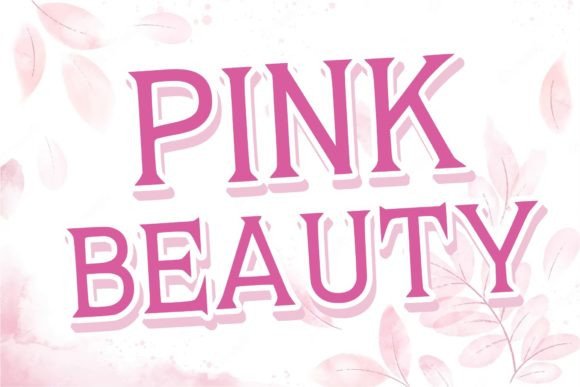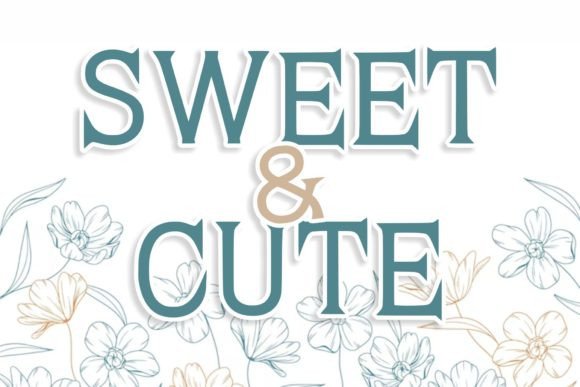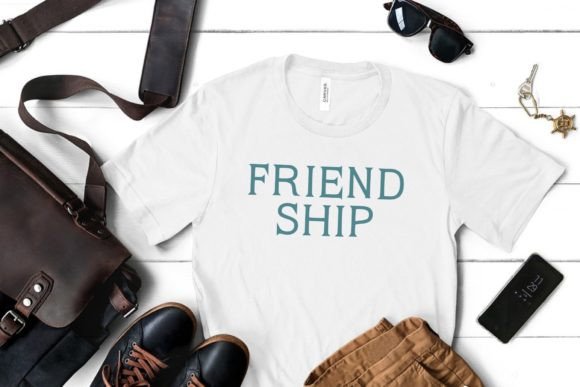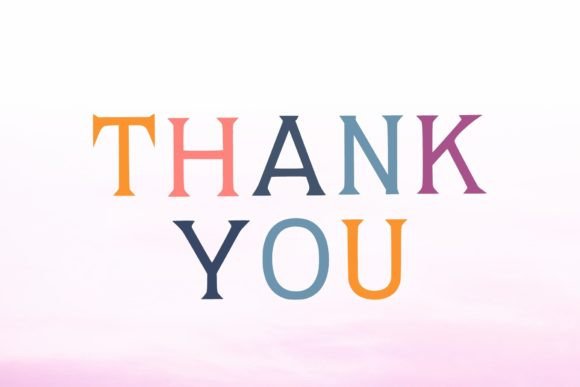
Introduction to Queen Flowers Font
Have you ever found yourself sitting at your desk, staring blankly at a blank sheet of paper, waiting for inspiration to strike? This is a moment many designers can relate to, and it’s where the perfect font can make all the difference. For those seeking a touch of elegance and whimsy in their creative projects, we’re excited to introduce the Queen Flowers Font – a high-quality, modern display font that’s sure to captivate.
This free download is more than just a design resource – it’s a versatile tool that can be used in a variety of applications, from digital design and presentations to crafting and making greeting cards. With its transparent background and intricate details, the Queen Flowers Font is a valuable asset for designers looking to add a personal touch to their work.
Whether you’re working on a large-scale project or a small, personal gift, this font has the potential to become your go-to choice for any occasion. In the following article, we’ll delve into the features and benefits of the Queen Flowers Font, and explore why it’s a must-have for any designer’s toolkit.
Key Features of Queen Flowers Font
- High-quality design resource ideal for creative projects and personal use.
- Features a transparent background, allowing for easy layering and manipulation in design projects.
- Available in a range of sizes, from 200 to 1000 pixels in height, catering to various design requirements.
- High-resolution design (300 DPI) for crisp and clear display in print and digital media.
- Unique, elegant design style making it perfect for floral-themed projects, wedding invitations, and other creative endeavors.
Honest Review: Queen Flowers Font
As a designer, I’m always on the lookout for high-quality design resources that can elevate my creative projects. The Queen Flowers Font is one such resource that caught my attention.
- Delicate and intricate design, perfect for adding a touch of elegance to any project.
One of the standout features of the Queen Flowers Font is its transparent background, which makes it easy to combine with other design elements and backgrounds.
- May not be suitable for bold or dramatic designs, as it’s a more delicate and intricate font.
- Limited character set, which may not be ideal for longer text-based projects.
Overall, I’m impressed with the Queen Flowers Font, and I think it’s a great addition to any designer’s toolkit. With its high-quality design and transparent background, it’s a versatile resource that can be used in a variety of creative projects.
Getting the Most Out of Queen Flowers Font
For the best results, use Queen Flowers Font in conjunction with other high-quality design elements, such as transparent backgrounds and intricate illustrations. This font is a great addition to any design resource, and can add a touch of whimsy and creativity to your project.
Queen Flowers Font is perfect for a variety of creative projects, including wedding invitations, birthday cards, and greeting cards. Its elegant design and transparent background make it a great choice for any project that requires a touch of sophistication and refinement.